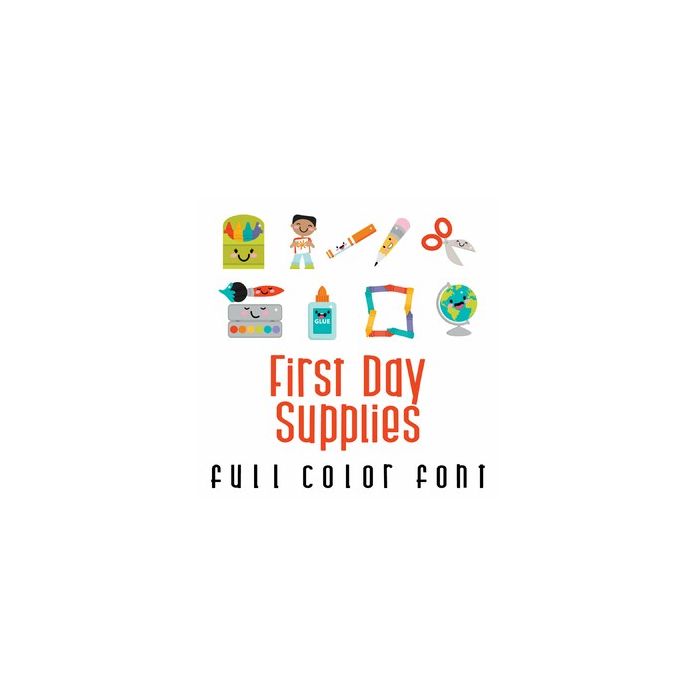
This adorable full-color doodlebat font features 26 fun school supplies. Perfect for teachers, students, classrooms, cards, crafts, gifts, decor, scrapbook pages, planner stickers, and more!